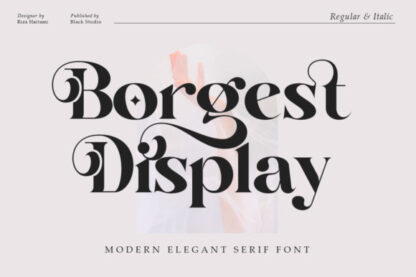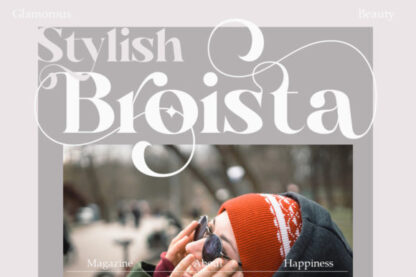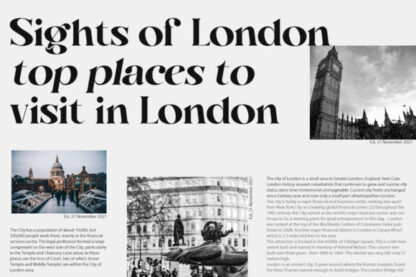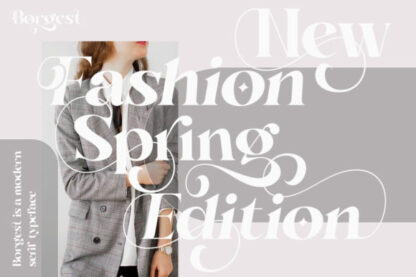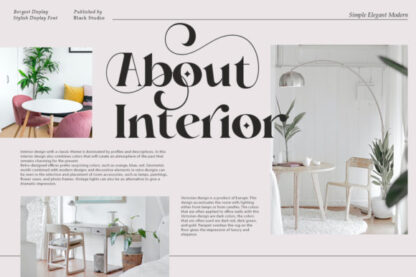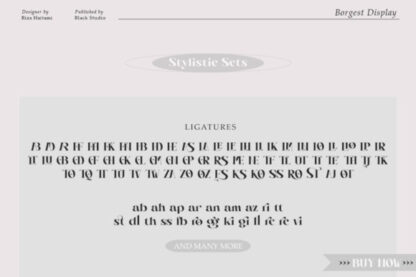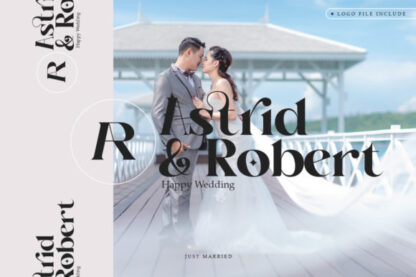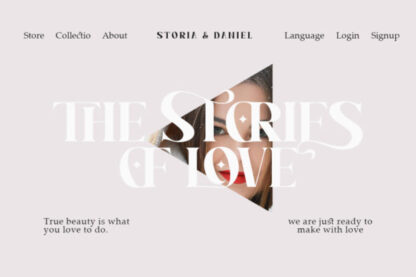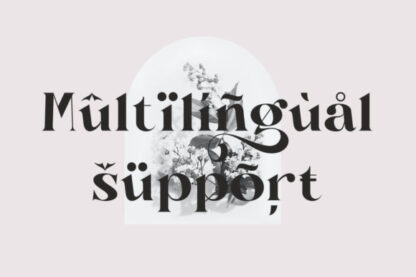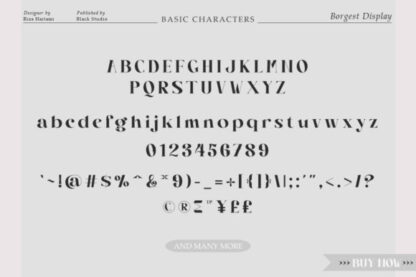
Borgest Display is a bold and stylish display font. Add it confidently to your projects, and you will love the results. This font is PUA encoded which means you can access all of the glyphs and swashes with ease!